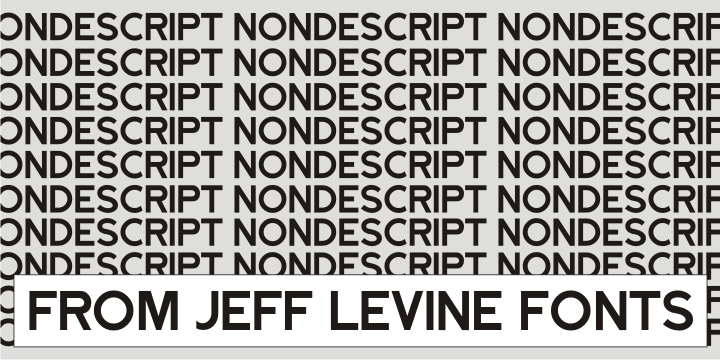
Nondescript JNL Font is perfect for corporate documentation, technical manuals, office forms, business correspondence, report layouts, administrative materials, institutional signage, and professional presentations. This versatile typeface excels in applications where neutral clarity and understated professionalism are essential.
What makes Nondescript JNL Font so exciting is its remarkable ability to provide exceptional functionality without drawing attention away from content, making it the perfect choice for professional communication. The font features clean, unadorned letterforms with optimal proportions that ensure maximum readability across all business contexts. Its deliberately neutral design philosophy combines timeless simplicity with modern efficiency, making it ideal for organizations seeking reliable typography that maintains professional credibility while supporting clear information delivery.
Nondescript JNL Font belongs to the utilitarian sans-serif font family, specifically designed for everyday business and institutional applications. This typeface family emphasizes practical readability through balanced character spacing and consistent stroke weights, ensuring dependable performance across various corporate communication formats and administrative documentation.
Achieve professional clarity with Nondescript JNL Font Free Download, a typeface that embodies reliable business communication and institutional dependability. This practical font delivers exceptional versatility for corporate applications, featuring comprehensive character sets with numerical clarity and professional punctuation perfectly suited for business documentation and administrative materials. Its carefully balanced letterforms maintain excellent legibility across various sizes, from detailed financial reports to large conference room displays. The font's distinctive neutral personality makes it indispensable for designers creating corporate brands, business materials, and institutional content where conveying trustworthy professionalism and clear information hierarchy is paramount for organizational success.